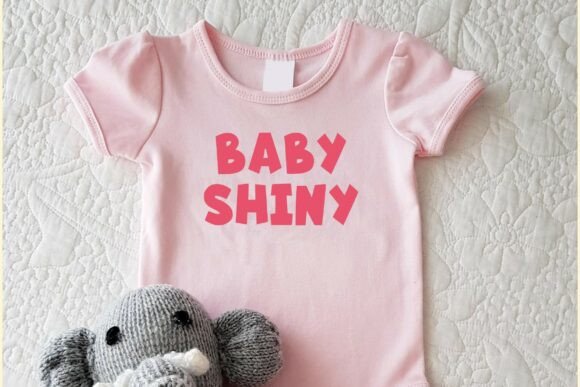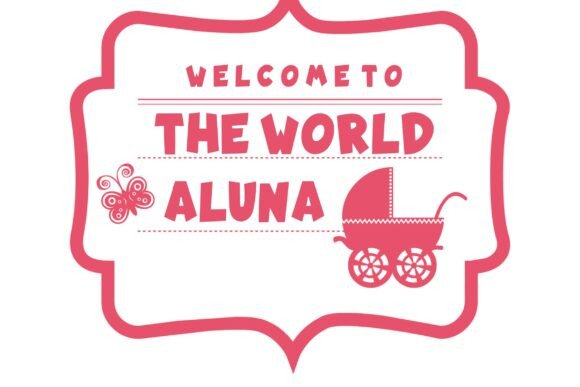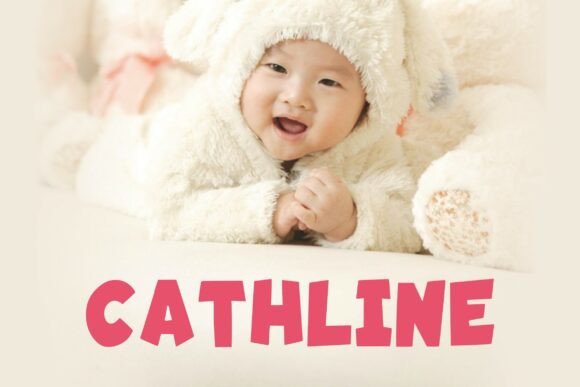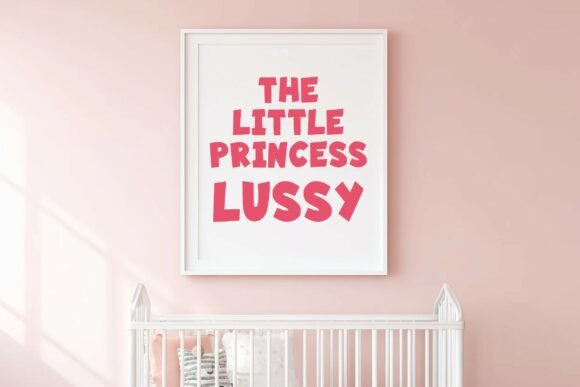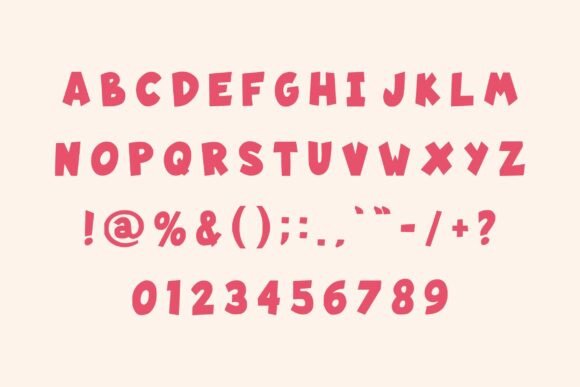
Introducing Comic Funky Font: Unleash Fun and Creativity in Your Designs
Are you looking for a font that can add a dash of fun and playfulness to your designs? Look no further than Comic Funky Font! This bold and playful display font is inspired by comic books and fun cartoon lettering, making it perfect for a wide range of projects, from kids’ materials to social media graphics.
What Makes Comic Funky Font Special?
Comic Funky Font is designed to bring a cheerful and energetic vibe to your designs. Its chunky shapes, rounded edges, and bold lines give it a distinctive look that’s reminiscent of classic comic books and cartoons. This font is not just about being fun; it’s also incredibly versatile, making it suitable for various applications, including:
- Kids projects: Perfect for children’s books, educational materials, and kids’ party invitations.
- Comic designs: Ideal for creating comic books, graphic novels, and cartoon-style illustrations.
- Posters and flyers: Great for promoting events, products, or services with a playful twist.
- Branding and packaging: Add a fun touch to your brand’s identity and packaging designs.
- Social media graphics: Stand out on social media with eye-catching headlines and captions.
Key Features of Comic Funky Font
Here are some key features that make Comic Funky Font a must-have for designers and crafters:
- Bold and playful: Comic Funky Font is designed to make a statement with its bold and playful style.
- Chunky shapes: The font’s chunky shapes give it a distinctive look that’s perfect for headlines and titles.
- Rounded edges: The rounded edges add a friendly and approachable feel to the font.
- Cheerful personality: Comic Funky Font is designed to bring a smile to your face with its cheerful and energetic personality.
Use Cases for Comic Funky Font
Comic Funky Font is perfect for a wide range of projects, including:
- Headlines and titles: Use Comic Funky Font to create eye-catching headlines and titles for your designs.
- Logos and branding: Create a fun and playful logo for your brand with Comic Funky Font.
- Stickers and t-shirts: Design fun and quirky stickers and t-shirts with Comic Funky Font.
- Book covers and classroom materials: Use Comic Funky Font to create engaging book covers and classroom materials.
- Birthday invitations and party decor: Add a touch of fun to birthday invitations and party decor with Comic Funky Font.
Why Choose Comic Funky Font?
With so many fonts available, why choose Comic Funky Font? Here are a few reasons:
- Unique style: Comic Funky Font has a unique style that’s sure to make your designs stand out.
- Versatile: Comic Funky Font is versatile and can be used for a wide range of projects.
- Fun and playful: The font’s fun and playful style is sure to bring a smile to your face and add a touch of personality to your designs.
In conclusion, Comic Funky Font is a bold and playful display font that’s perfect for designers and crafters looking to add a touch of fun and creativity to their projects. With its chunky shapes, rounded edges, and cheerful personality, this font is sure to make your designs stand out. Whether you’re working on kids’ projects, comic designs, posters, branding, packaging, or social media graphics, Comic Funky Font is the perfect choice. So why wait? Download Comic Funky Font today and unleash your creativity!